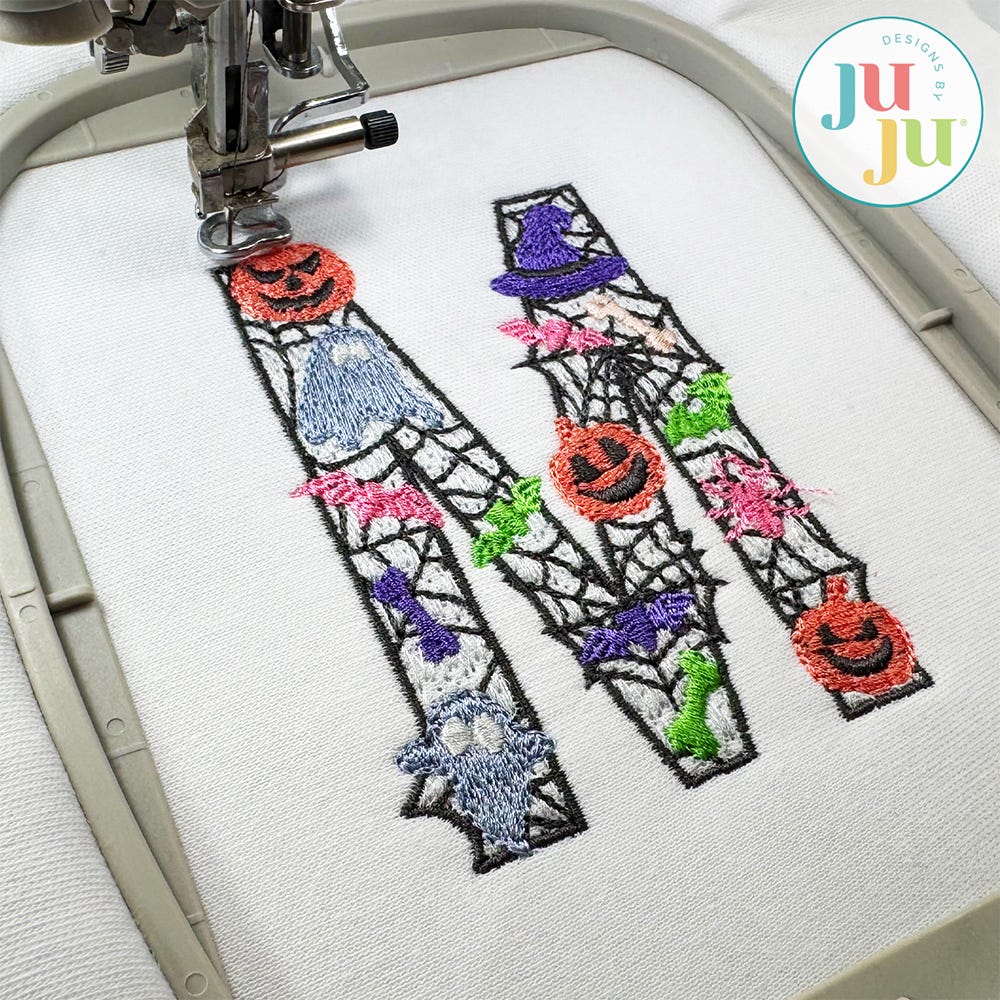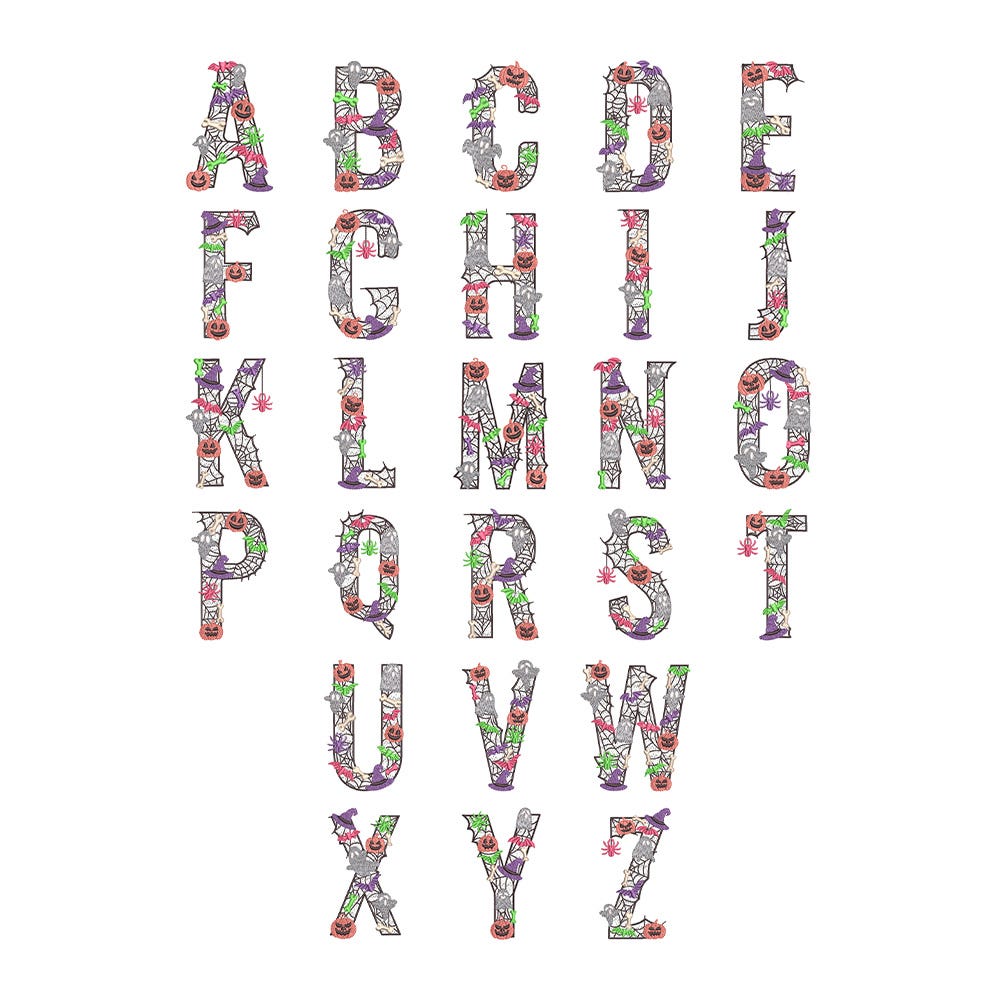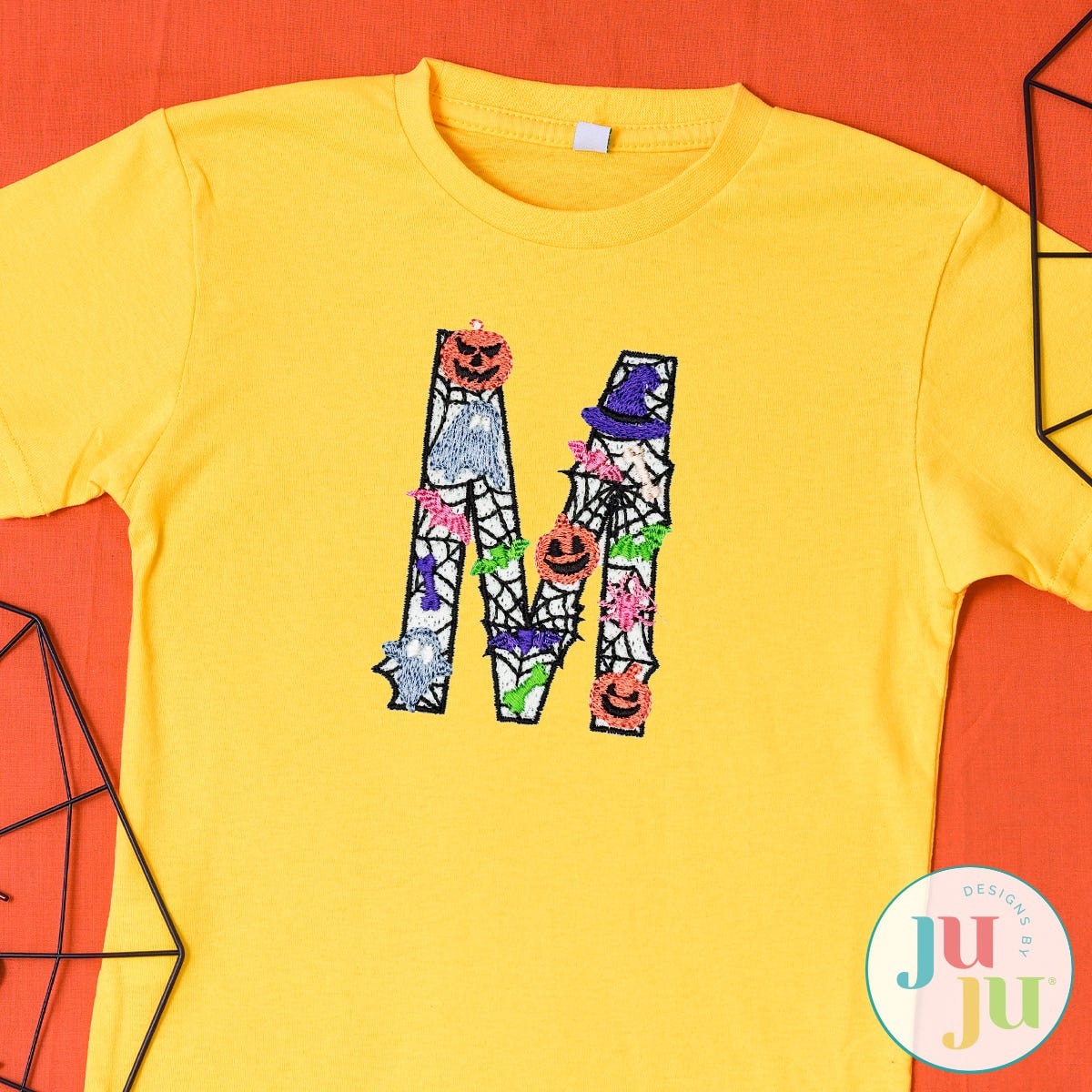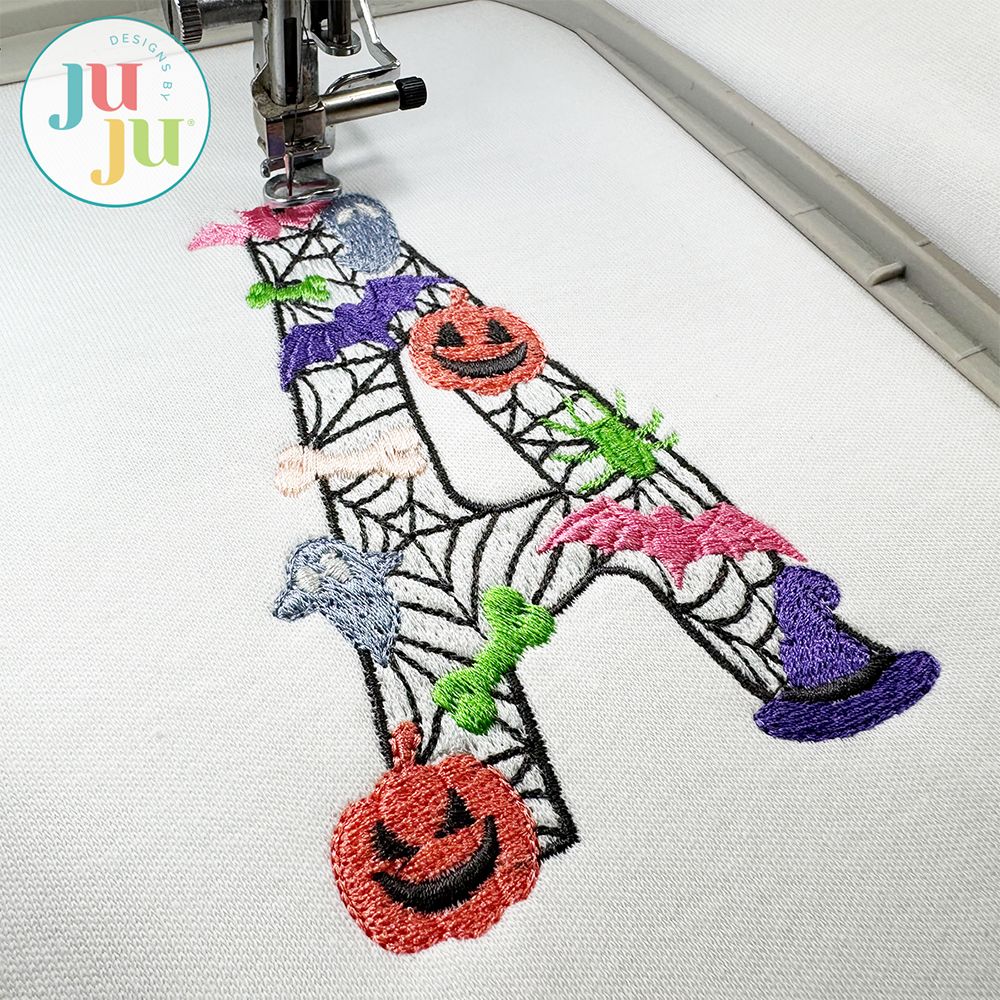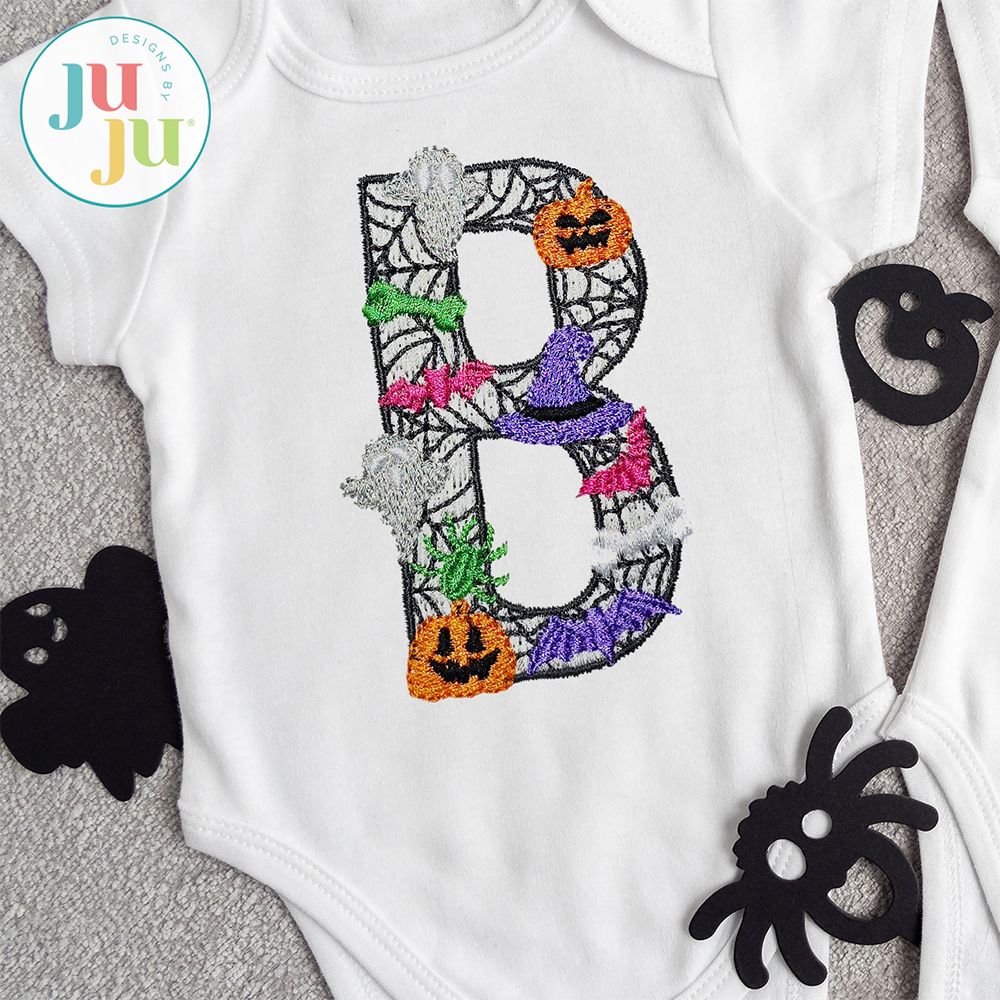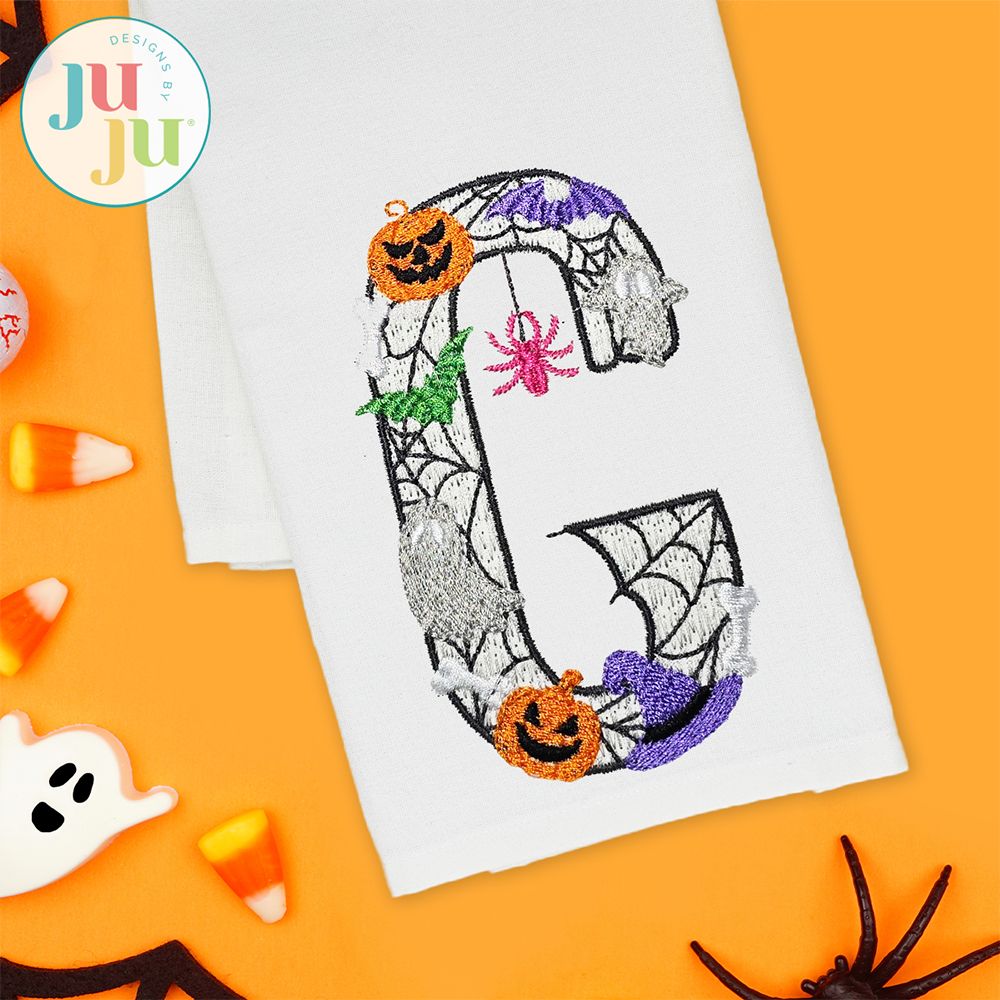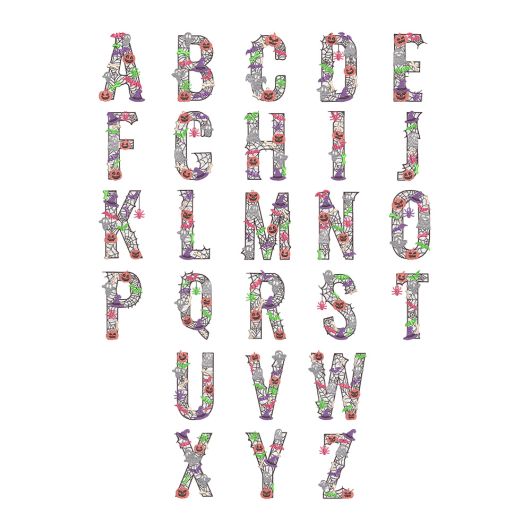
Halloween Motif Filled Monogram Embroidery Font
Our Halloween Monogram is sure to put a SPELL on you! Each spider web style letter is topped with embroidered Halloween icons such as ghosts, bats, spiders and more! The letters feature a variety of stitch types including: satin, motif fill, and more.  There is only one file per letter as pictured.